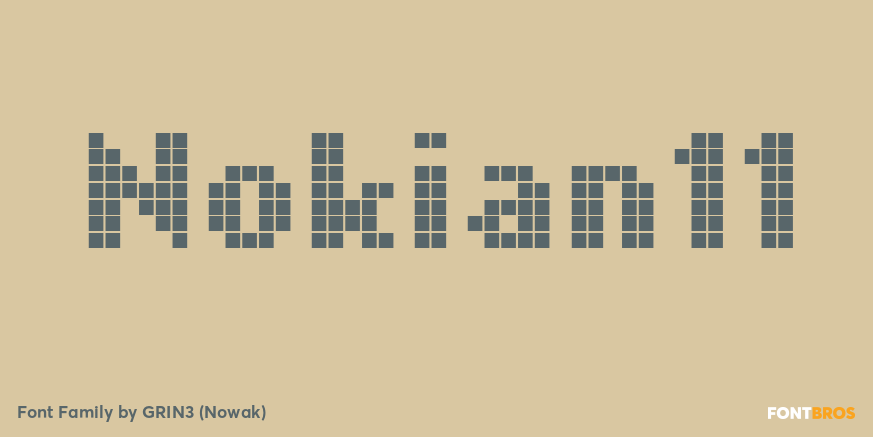
Nokian11 is a font inspired by an old Nokia phone display. It was created in 2001 and named Nokian. Nokian11 is a new, improved version with full set of glyphs and covers most of European languages.